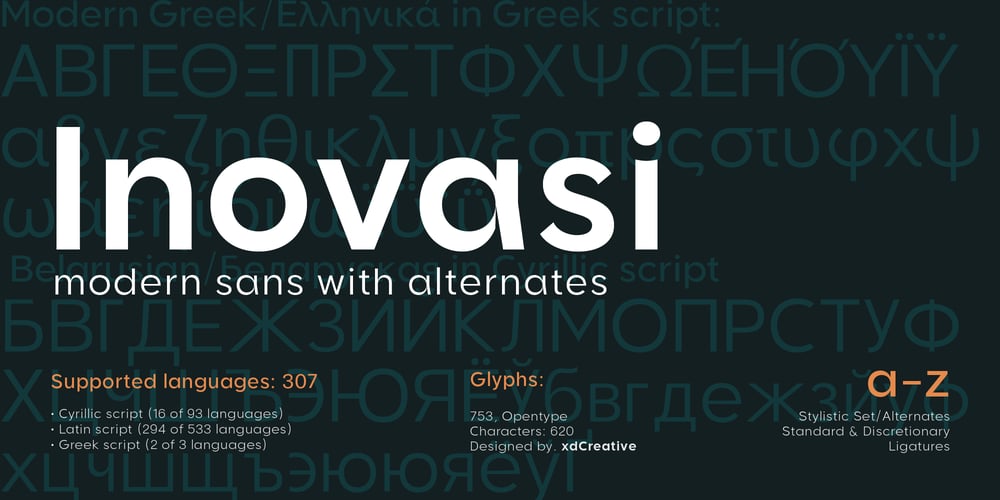
Inovasi
Inovasi font
Inovasi Font Family was designed by Faldy Kudo and published by XdCreative. Inovasi contains 18 styles and family package options. Inovasi Sans “Inovasi Sans is the youngest brother of Clinto Geometric sans font family by Faldykudo, released a few months ago. Inovasi is constructed based on geometric principles, emphasizing simplicity and modernity.The font comes with comprehensive multilingual support, offering more than 300 languages. Notably, Inovasi Sans features a distinctive characteristic in its lowercase ‘a’, offering 8 alternate characters.Additionally, each lowercase letter from ‘a’ to ‘z’ has stylistic alternates, providing a unique look and feel for a modern and futuristic impression.”